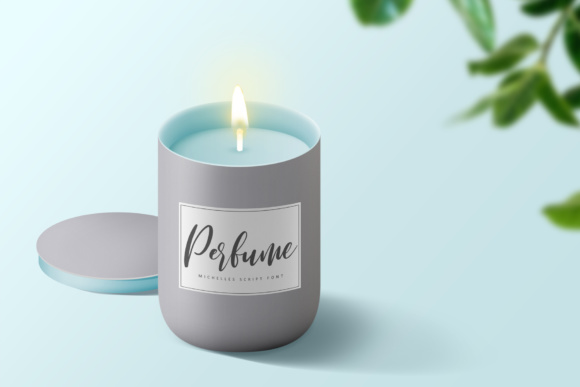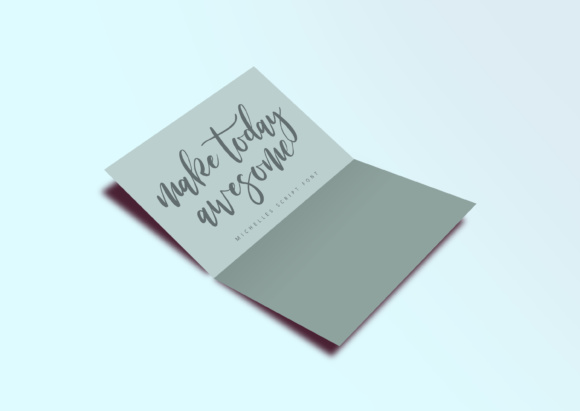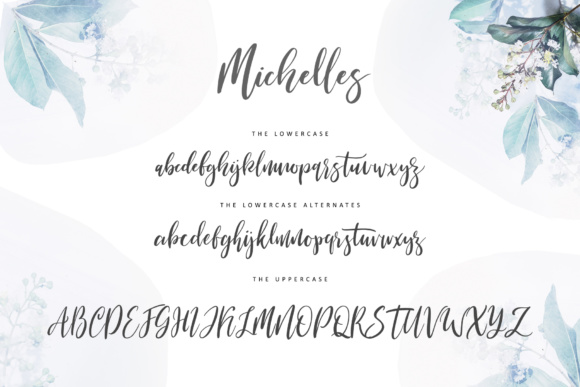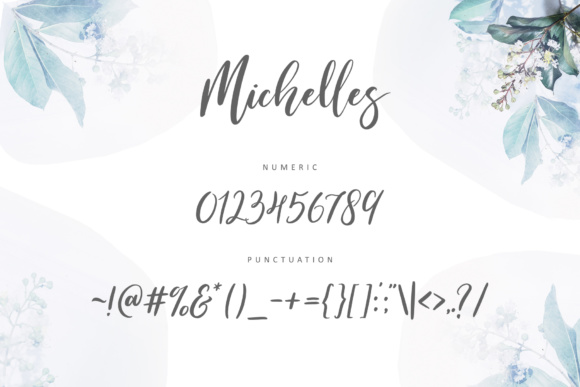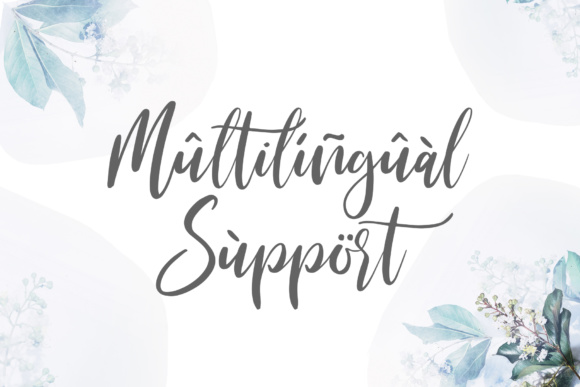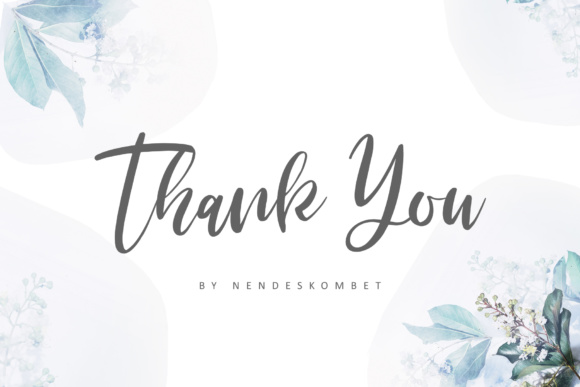
Introduction to Michelles Script Font
As designers, we’ve all been there – staring at a blank canvas, searching for the perfect font to bring our creative project to life. And then, suddenly, it hits us – that perfect combination of style and elegance that elevates our design from ordinary to extraordinary. For many, that moment comes with the discovery of the Michelles Script Font.
This fabulous font is more than just a pretty face – it’s a game-changer for designers looking to add a touch of personality to their work. With its high-quality design and transparent background, the Michelles Script Font is the perfect addition to any project, whether you’re creating a logo, printed quote, or product packaging.
Key Features of Michelles Script Font
- Unique, handwritten style with elegant flair, perfect for creative projects.
Honest Review: Michelles Script Font
As a designer, I’m always on the lookout for high-quality fonts that can elevate my creative projects. Recently, I came across the Michelles Script Font, and I’m excited to share my thoughts on it.
What works well: ✨ The Michelles Script Font is a beautiful, elegant script font that’s perfect for adding a touch of sophistication to your designs. It’s highly customizable, with a range of styles and weights to choose from. I love that it’s available for free download, making it a valuable design resource for anyone working on a project.
- Beautiful, elegant script font
- Highly customizable with multiple styles and weights
Limitations: ⚠️ While the Michelles Script Font is a great addition to any design collection, it does have some limitations. For example, it’s not suitable for use in situations where a transparent background is required, which can be a bit of a hassle for some designers.
Overall, I’m really impressed with the Michelles Script Font. It’s a great choice for anyone looking for a high-quality, elegant script font that’s easy to use and customize. Just be aware of its limitations, and you’ll be all set to create stunning designs with this font.
For the most out of the Michelles Script Font, use it for creative projects such as wedding invitations, birthday cards, and social media graphics. This beautiful script font is perfect for adding a touch of elegance and sophistication to your designs. Additionally, use it for headings, titles, and quotes to make them stand out.